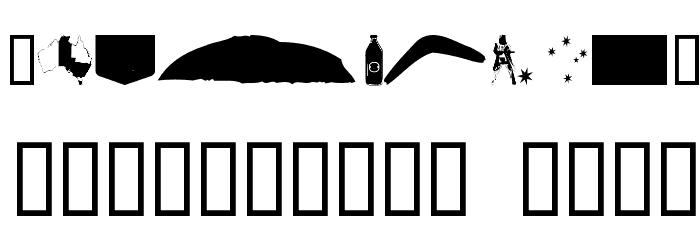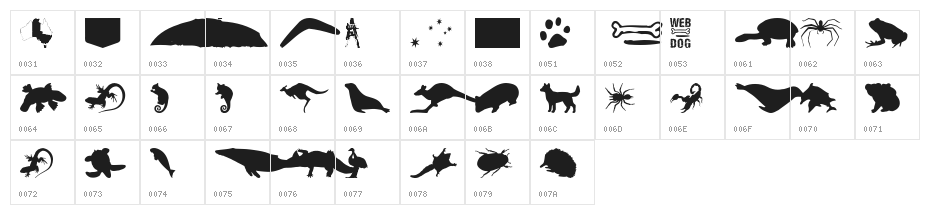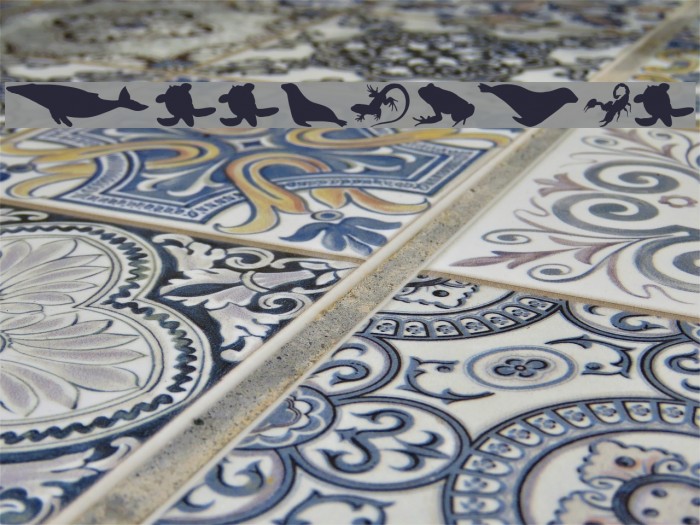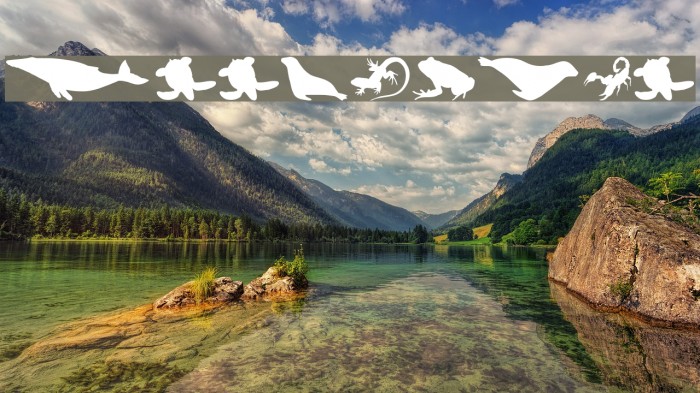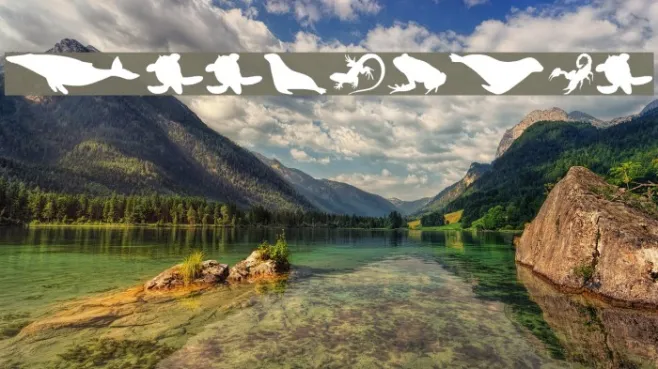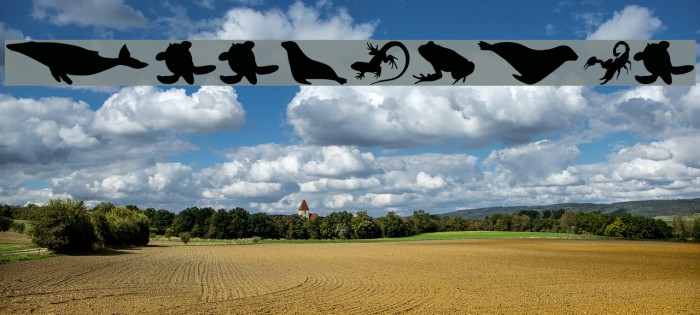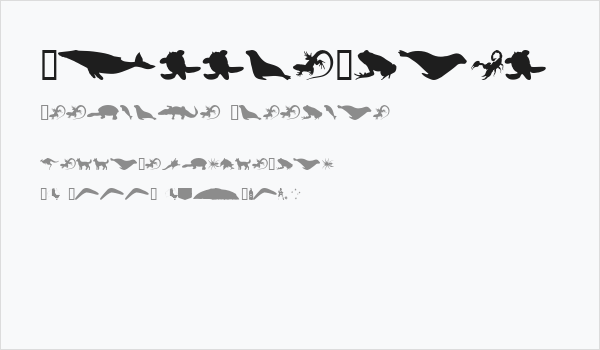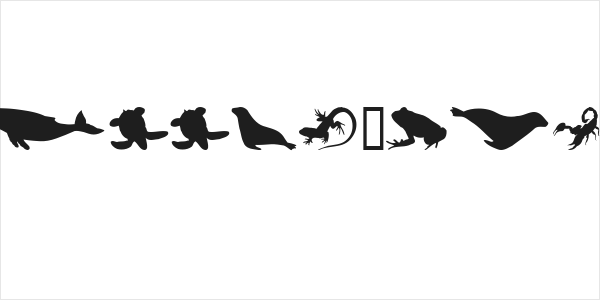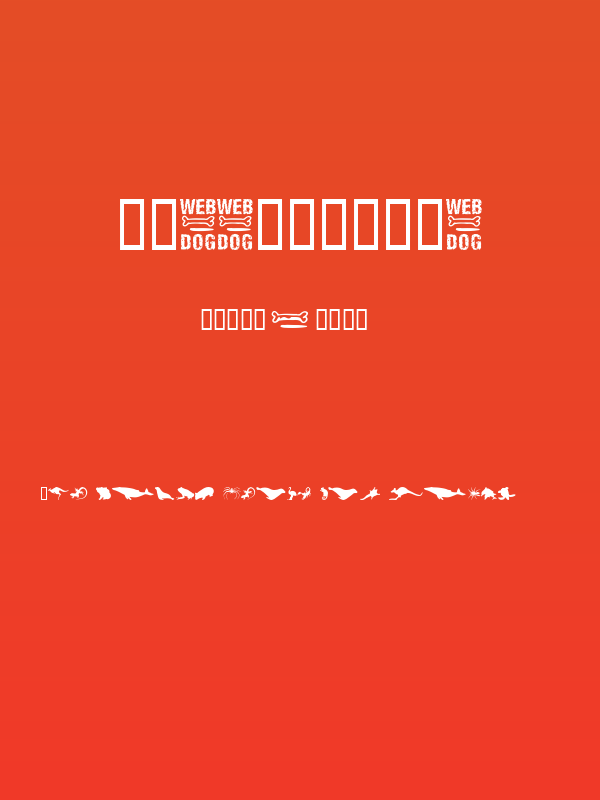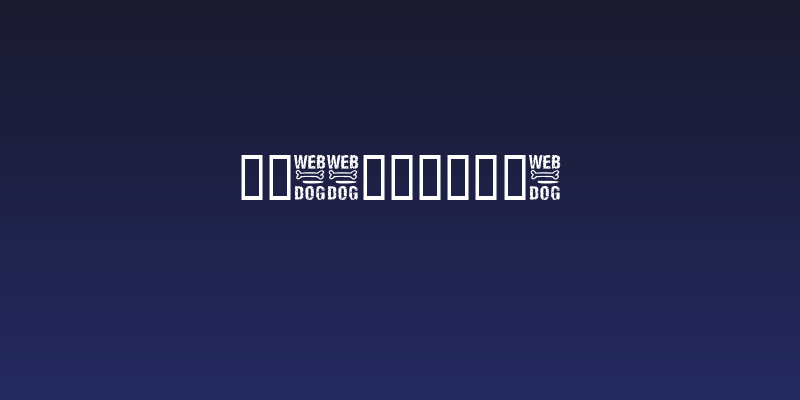
AussieIcons Font
AussieIcons Description
A collection of bold, silhouette-style icons representing Australian animals, landmarks, and symbols, featuring clear and easily recognizable shapes with solid fills and no outlines or internal detail.
| Overall Style | Decorative, Thematic, Playful |
| Use Case | Logos, Icons, Themed graphics, Educational visuals |
| Proposed Projects | Tourism branding, educational materials, themed posters, event flyers, souvenirs, and web graphics. |